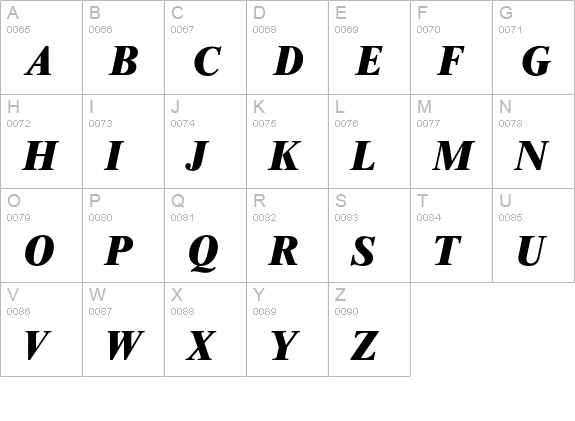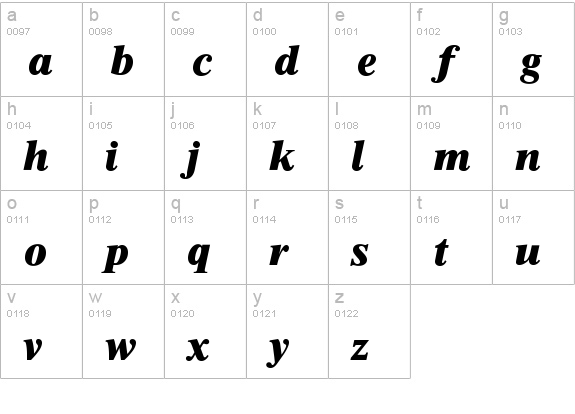
Introducing Thames-HeavyIta, a bold and powerful font that exudes strength and confidence. This versatile typeface is perfect for making a bold statement in your designs, whether it be for logos, headlines, posters, or any other creative project. Thames-HeavyIta features a unique combination of thick and thin strokes, resulting in a visually striking aesthetic that commands attention. Its sleek and modern design is sure to leave a lasting impression on your audience. But what makes Thames-HeavyIta even more appealing is that it is completely free to download. Yes, you read that right - this incredible font is available to you at absolutely no cost. Thanks to its creators' generosity, you can now access Thames-HeavyIta easily and conveniently at FontsMarket.com. With Thames-HeavyIta, you have the opportunity to elevate your designs without breaking the bank. Whether you're a professional designer or a hobbyist, this font is a valuable addition to your creative toolkit. Its versatility and boldness make it suitable for a wide range of projects, allowing you to unleash your creativity and truly stand out from the crowd. So why wait? Take advantage of this amazing opportunity and download Thames-HeavyIta today. Explore its countless possibilities and let your imagination run wild. With this font, you have the freedom to express yourself and create stunning designs that leave a lasting impression. Don't miss out on this chance to enhance your creative endeavors - head over to FontsMarket.com now and get your hands on Thames-HeavyIta, the free font that packs a punch!